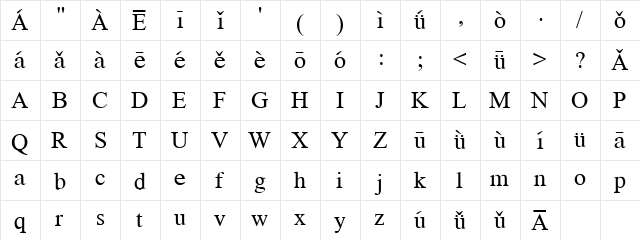
Chinese Pinyin Regular
Design Context for Chinese Pinyin Typeface
Chinese Pinyin takes a measured approach to typography — its balanced proportions and neutral character make it a reliable workhorse for both digital and print work.